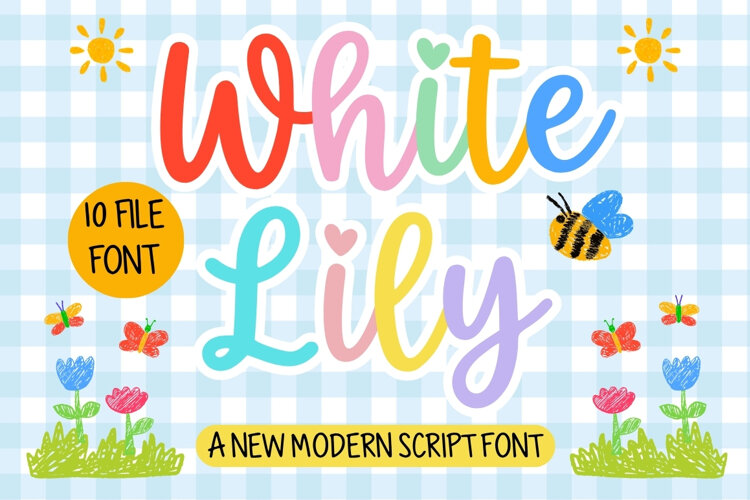
Perfect for luxury branding, fashion designs, beauty products, wedding stationery, invitations, editorial layouts, packaging, logos, and creative quotes. Its flowing style adds a timeless sense of elegance while maintaining strong readability and visual impact.
White Lily is made for designs that deserve to feel graceful, sophisticated, and unforgettable.